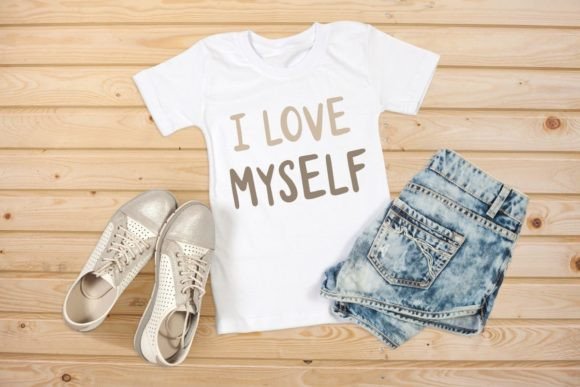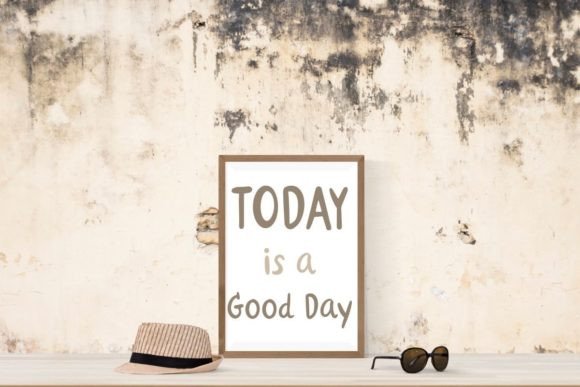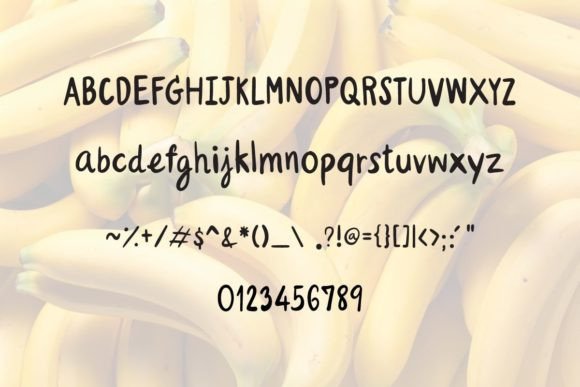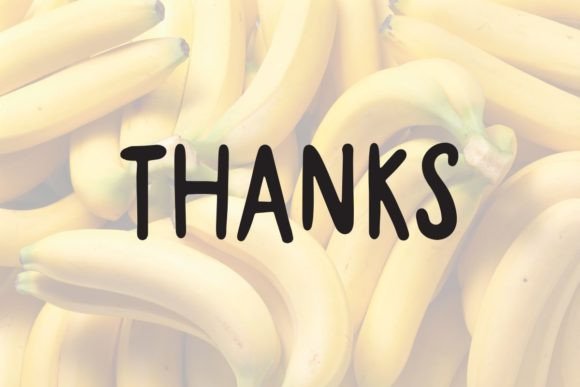
Banana Font
About Banana Font
“Banana” is described as an easy and fun handwritten font with an informal style and a casual vibe. This font is a versatile choice suitable for various creations, including mug designs, shirts, hats, tote bags, card making, wall art, interior prints, and more.
The charm of “Banana” lies in its ability to convey an informal and lighthearted feel, making it an excellent option for a wide range of design contexts. Whether you’re working on personal projects or creating designs for merchandise, this font offers a playful and relaxed style that can enhance the overall appeal of your creations.
As you incorporate “Banana” into your creative process, you’ll discover its versatility and ability to add a touch of fun and informality to your work. This font becomes a reliable choice for designers seeking to create designs that resonate with a casual and approachable essence.
In summary, “Banana” is an easy and fun handwritten font known for its versatility and playful style. Its informal charm makes it a suitable choice for a variety of creative projects, from merchandise designs to personal artwork. Allow “Banana” to be your creative companion, and witness how it adds a lighthearted and informal essence to your creations, making them more engaging and enjoyable.